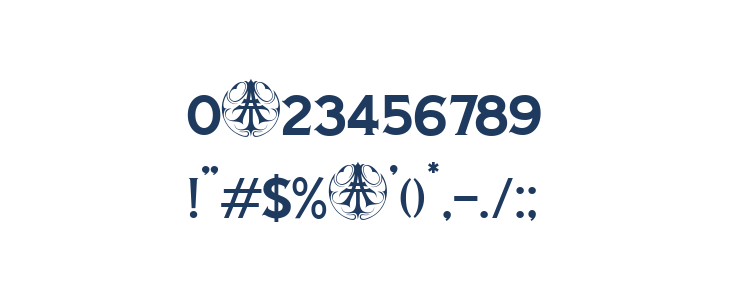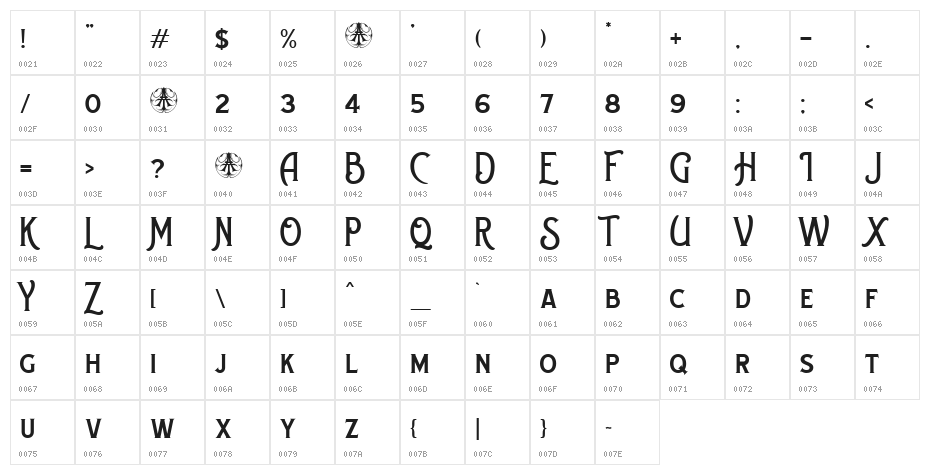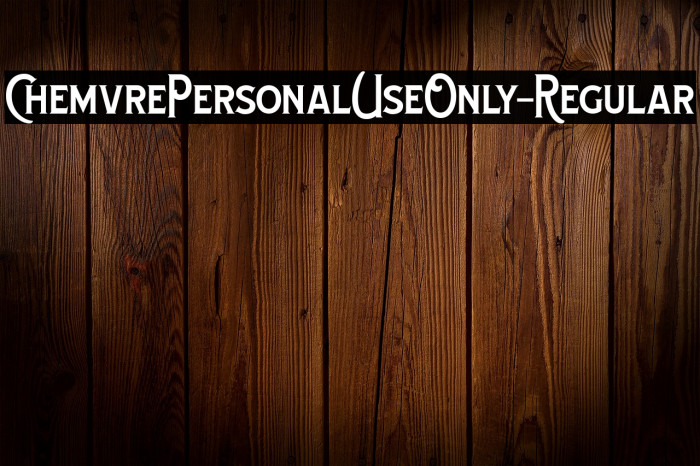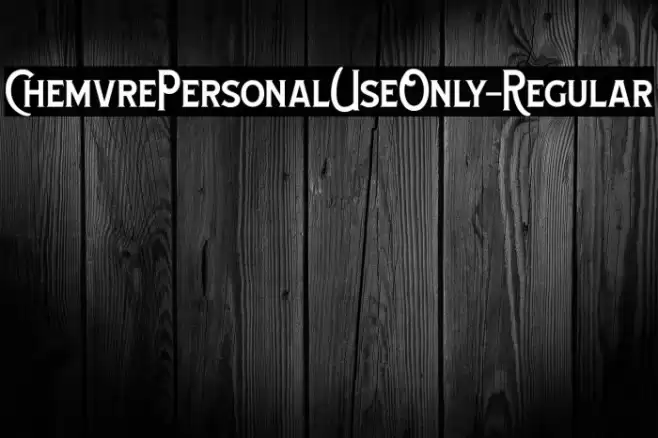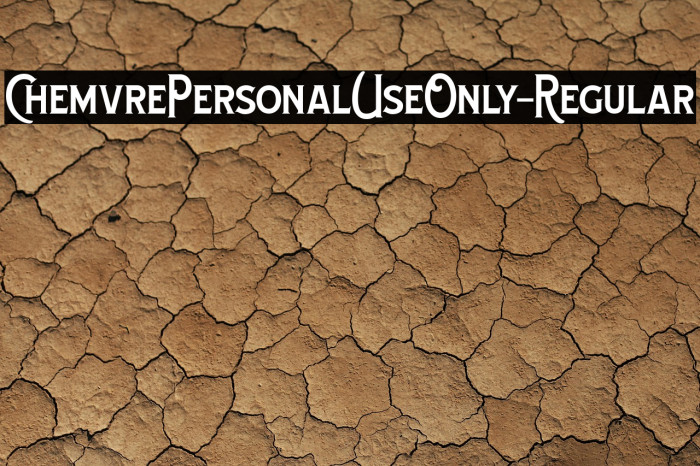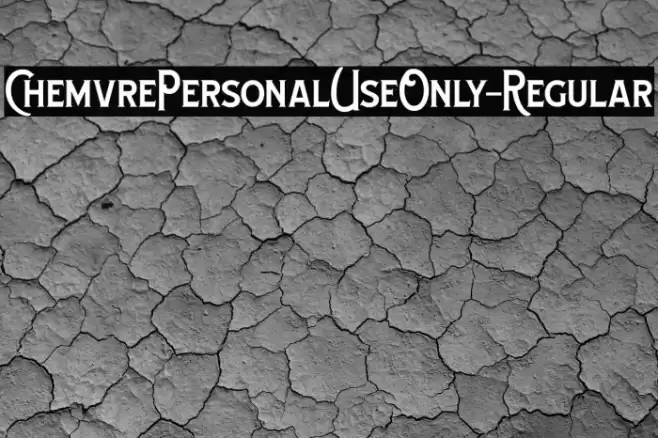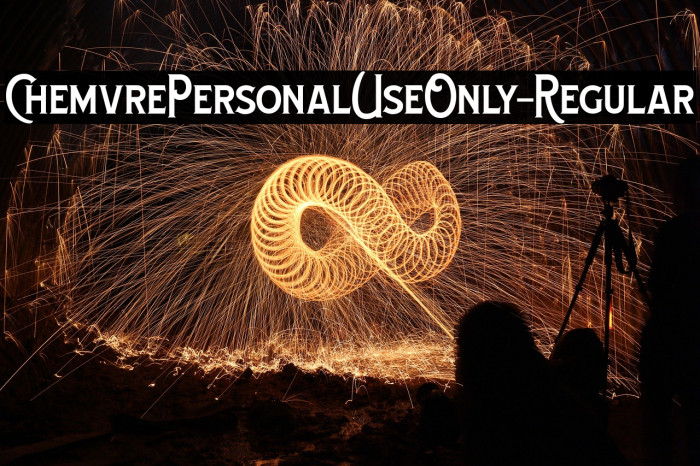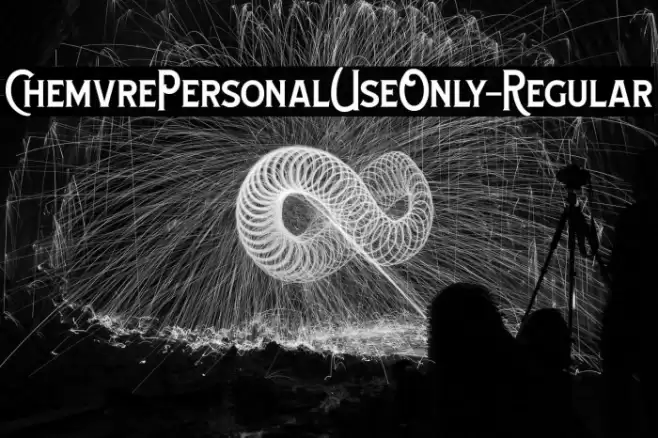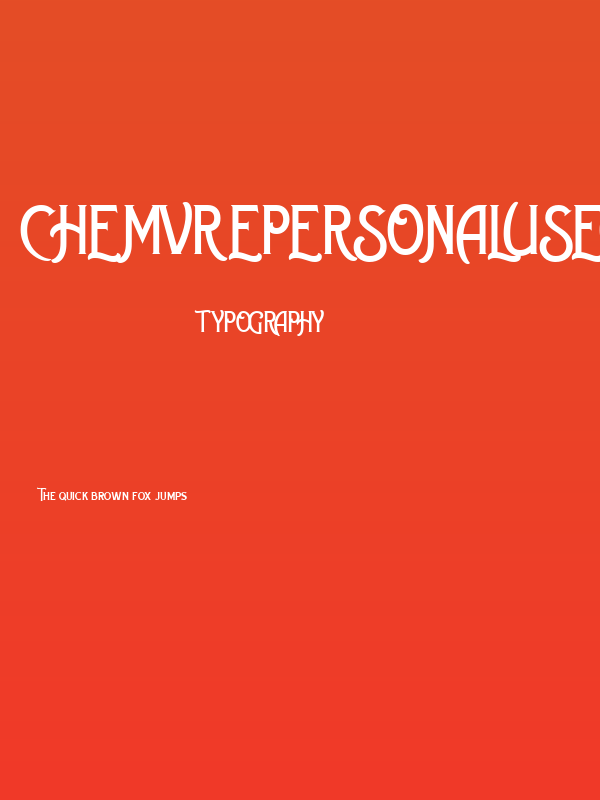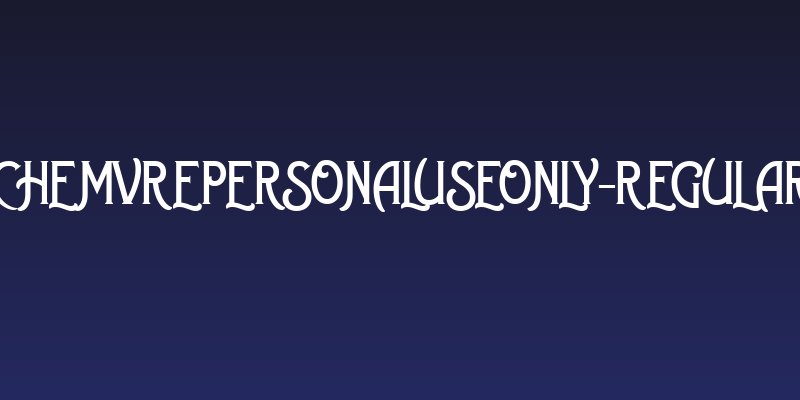
ChemvrePersonalUseOnly-Regular Font
ChemvrePersonalUseOnly-Regular Description
This font features a unique blend of classic and decorative styles, characterized by its elegant curves and intricate details. The uppercase letters exhibit a distinct flair, with some characters having extended strokes that add a touch of sophistication. The lowercase letters maintain a consistent style, complementing the uppercase with their own subtle embellishments. The numerals are bold and clear, ensuring readability while maintaining the font's overall aesthetic. Special characters are designed with ornate elements, making them stand out. This font is ideal for projects that require a touch of elegance and creativity.
| Use Case | Headlines, Logos, Artistic Projects |
| Proposed Projects | Ideal for wedding invitations, luxury branding, artistic posters, and decorative headlines. |